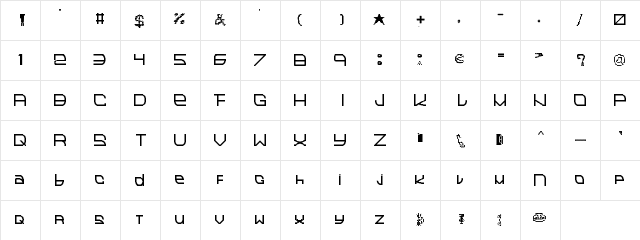
Magic Code Regular
Design Context for Magic Code Typeface
Magic Code brings the precise, column-aligned rhythm of monospaced typography to designs that value technical clarity and systematic order.